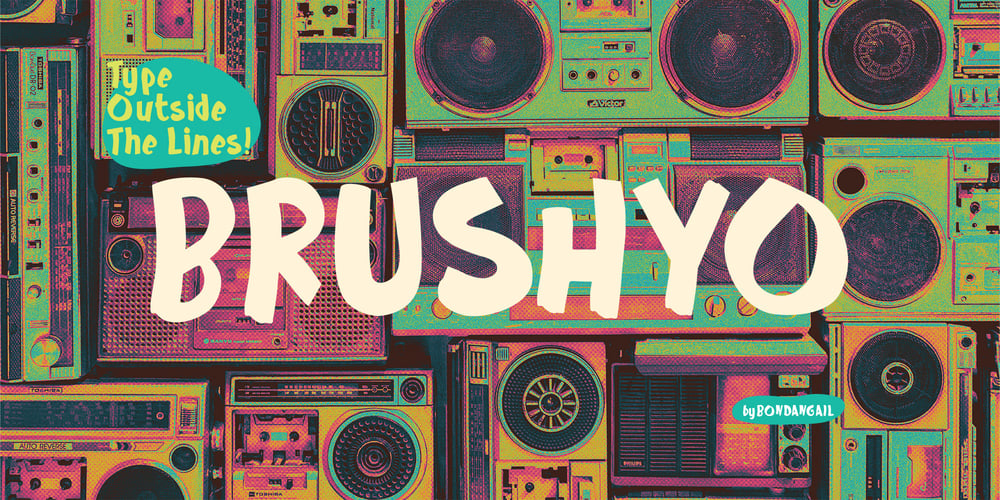
Brushyo
Brushyo font
Brushyo Font Family was designed by Bondan Gail Saputro and published by BondanGail. Brushyo contains 1 styles and family package options. Brushyo – Type Outside the Lines!Unleash creativity with Brushyo, a bold, hand-drawn brush font that blends raw energy with playful personality. Inspired by expressive brush strokes and the unfiltered attitude of street art, Brushyo captures the essence of handcrafted imperfection—giving every design a unique and dynamic feel. Its bold uppercase commands attention, while the relaxed lowercase adds a welcoming charm, striking the perfect balance between edgy and approachable.Brushyo thrives wherever bold statements are needed. Whether you’re crafting a retro-inspired design or adding a rebellious urban twist, this font is your go-to for standing out. With its dynamic, imperfect strokes, Brushyo brings an authentic handcrafted feel to your designs—perfect for brands that dare to stand out.Expressive & Playful – Imperfect yet confident strokes give your text a natural, artistic touch.Versatile & Eye-Catching – Perfect for music festival, posters, apparel, branding, packaging, magazine layoutsRetro Meets Street Style – A fusion of vintage vibes and modern urban edge, making your message pop.Type outside the lines with Brushyo!